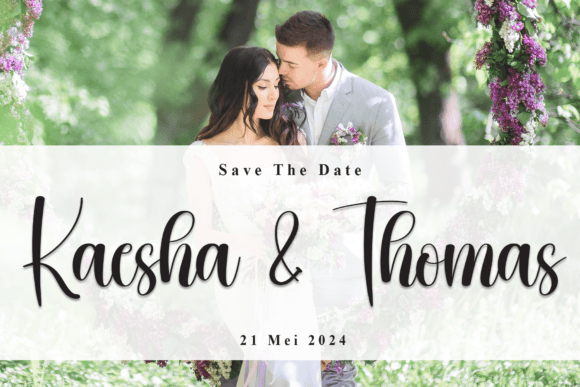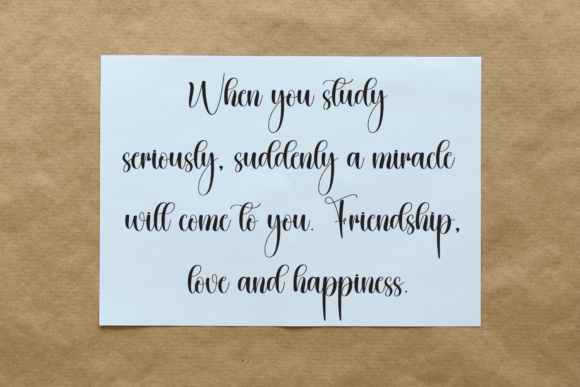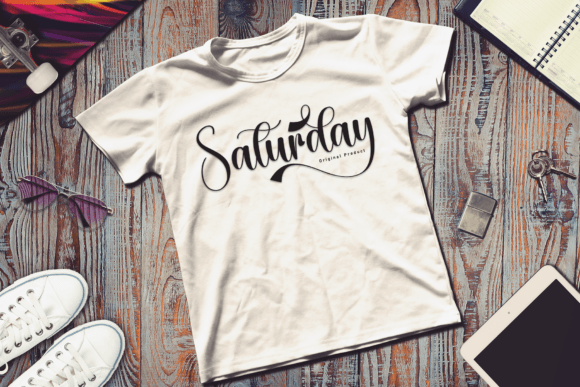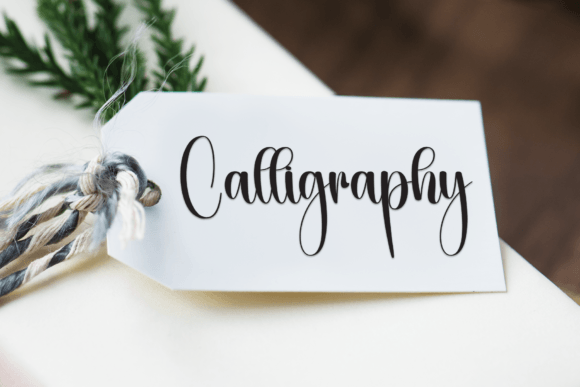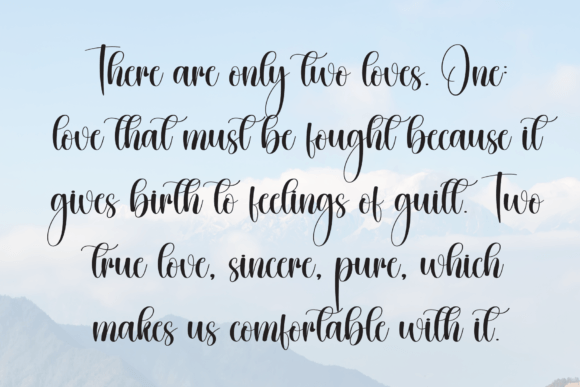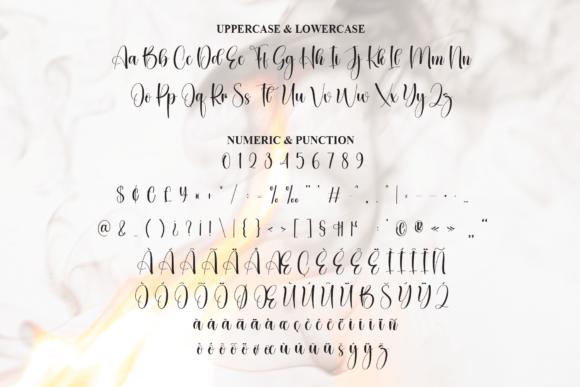
Adding a Pinch of Personality to Your Designs
There’s nothing quite like the feeling of curling up with a warm cup of coffee and a blank canvas, waiting for inspiration to strike. For many creatives, those moments of clarity are what drive us to bring our most imaginative ideas to life. And for those who love baking, the connection to this charming handwritten font is only natural.
Meet Baking Font, a delightful and casual typeface that’s as warm as a fresh-baked cookie. This playful font is perfect for adding a personal touch to greeting cards, whimsical branding, and cozy invitations. With its friendly character and sweet curves, Baking Font is the perfect addition to any design project that needs a little extra love.
- Unique Characteristics: Includes custom-designed baking-themed glyphs and ligatures for a professional baking look
Baking Font Review
Overall, I found “Baking Font” to be a cute and playful font, but it didn’t entirely live up to my expectations. Here are my thoughts:
- It’s perfect for baking-related projects, with a charming, whimsical feel.
- The font is highly customizable, allowing users to adjust the size, color, and spacing to suit their needs.
- The font is easy to read, even at smaller sizes, making it suitable for menus, labels, and other text-heavy applications.
- The font is limited in its use, as it’s primarily designed for baking-related projects. While it could be used for other purposes, it may not be the best choice.
- The font lacks a clear, detailed guide for use, which may lead to inconsistencies in its application.
- The font may not be suitable for formal or professional projects, as its playful nature may detract from the overall tone.
Overall, I would give “Baking Font” 3 out of 5 stars. While it’s a charming and versatile font, its limitations and lack of detail may make it less suitable for some users. However, for baking-related projects, it’s a great choice, and its customization options make it a solid choice for those looking for a fun and unique font.
For the most effective use of Baking Font, use it sparingly to add a touch of whimsy or personality to your design. Pair it with clean, sans-serif fonts to create a visually appealing contrast. Experiment with different font sizes and colors to find the perfect balance for your design.
Baking Font is perfect for:
– Food bloggers and influencers to add a touch of personality to their recipes and blog posts.
– Event planners and designers to create visually appealing invitations and menus.
– Food photographers to add a touch of whimsy to their captions and descriptions.